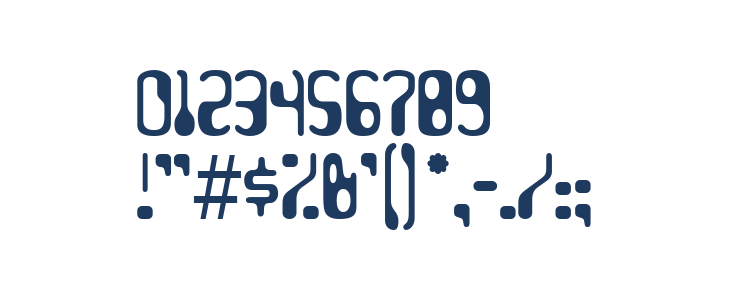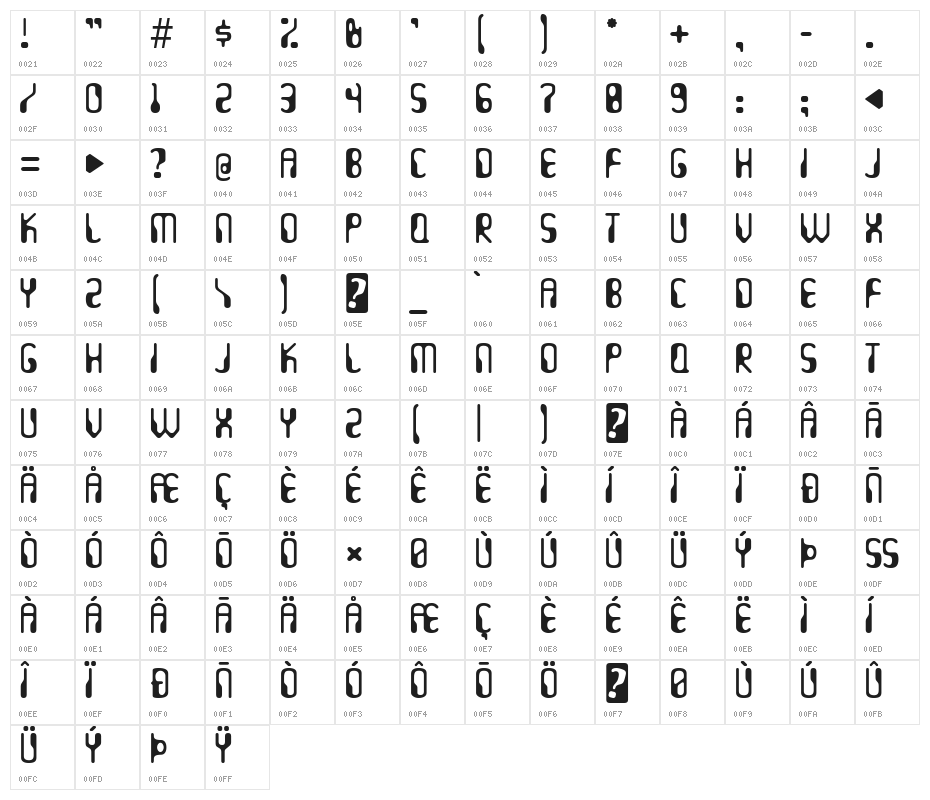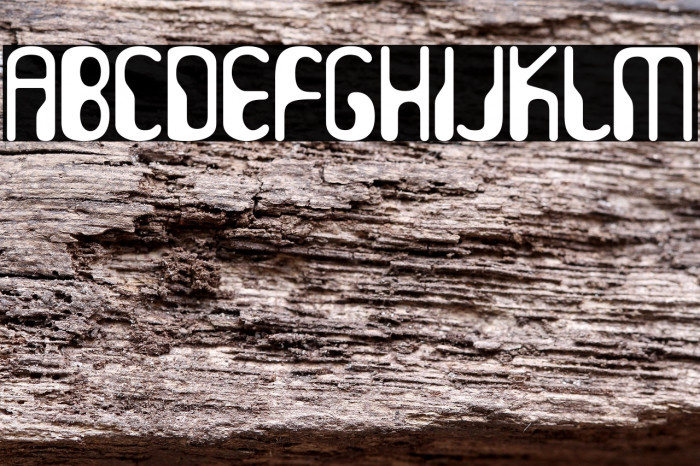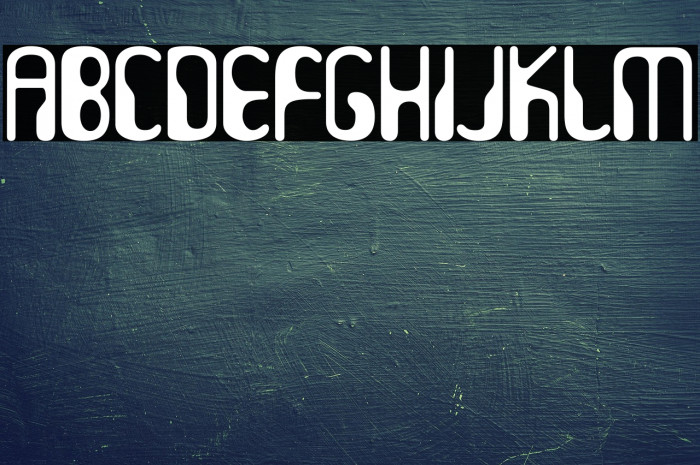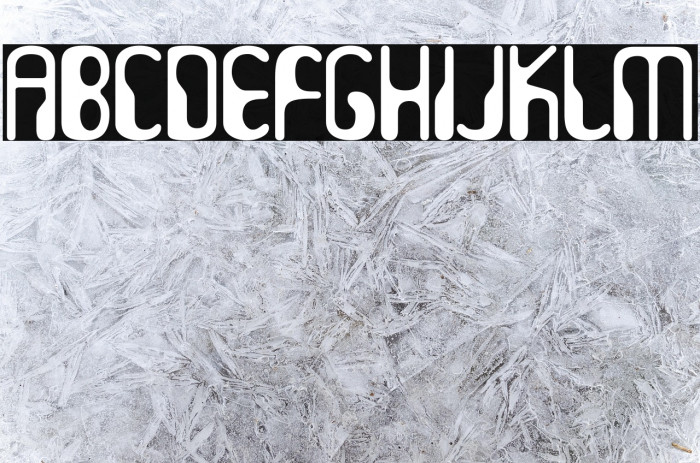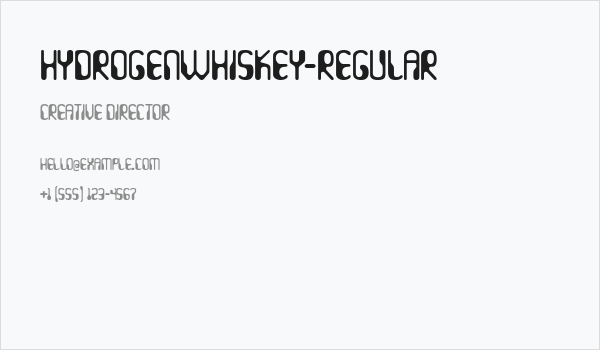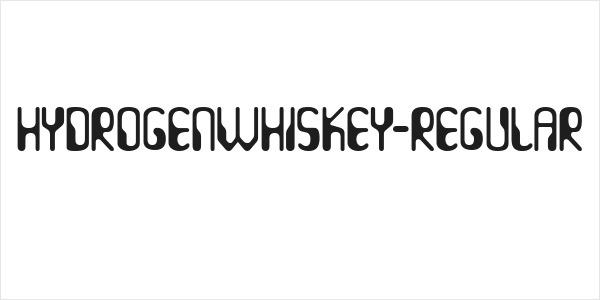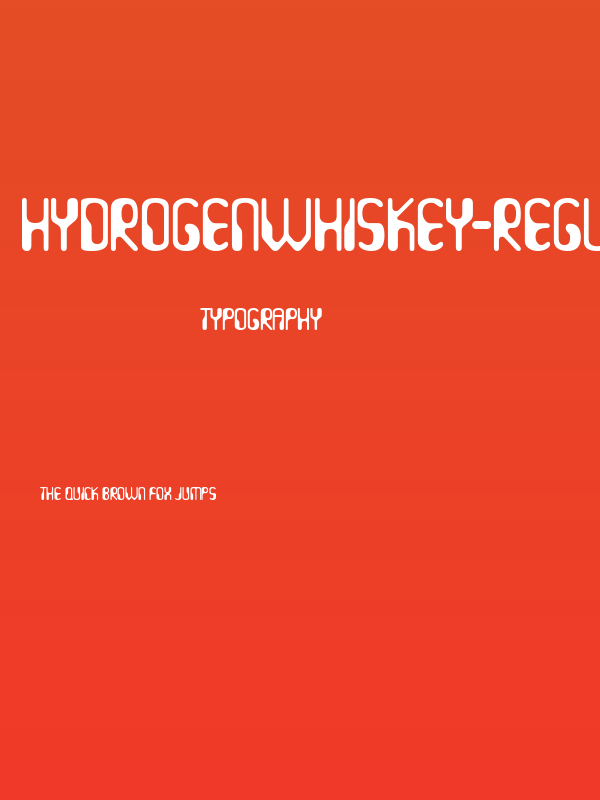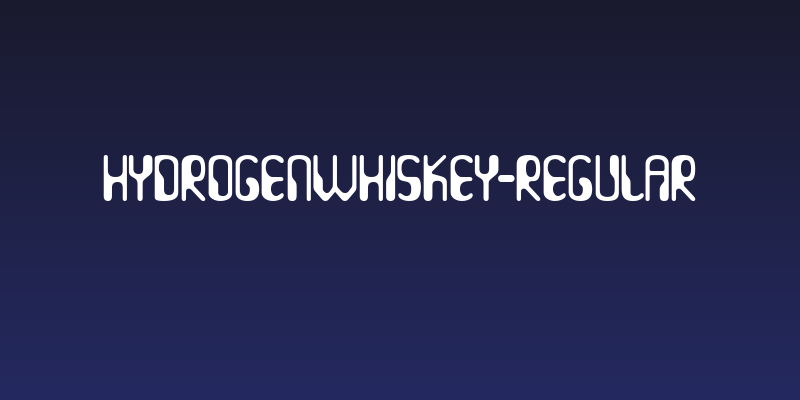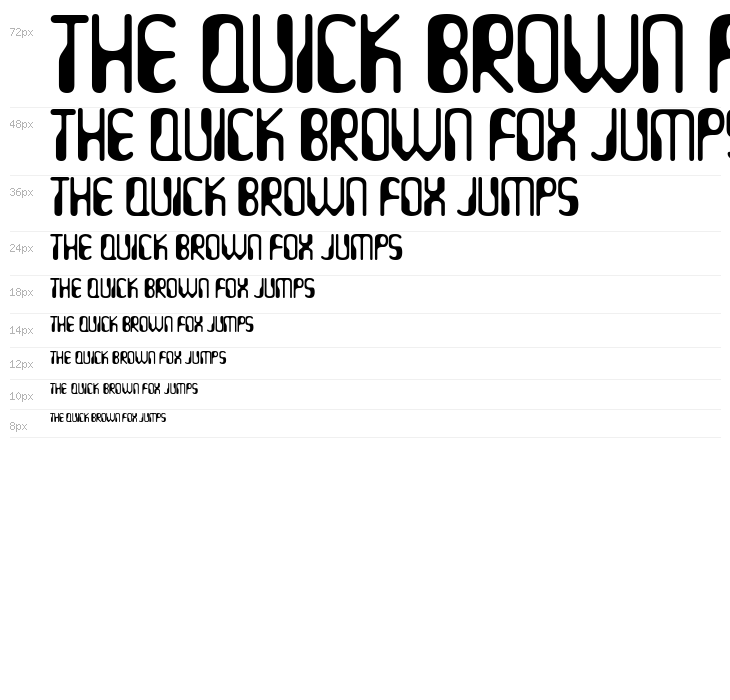
HydrogenWhiskey-Regular Font
HydrogenWhiskey-Regular Description
This font features a unique and modern design with a futuristic flair. The characters are bold and rounded, with a distinct geometric style that combines both straight and curved lines. The uppercase and lowercase letters maintain a consistent width, creating a uniform appearance. The numbers and special characters follow the same design principles, ensuring a cohesive look across all elements. The font's boldness and distinct shapes make it stand out, making it suitable for eye-catching designs.
| Proposed Projects | Ideal for branding, posters, and digital media where a modern and striking appearance is desired. |